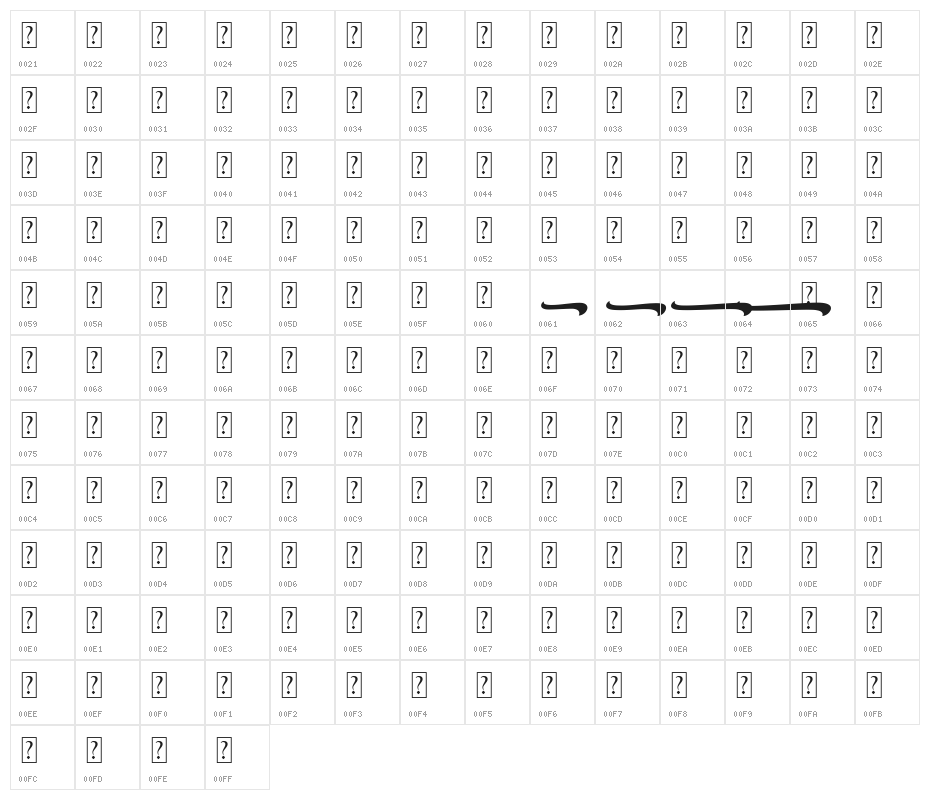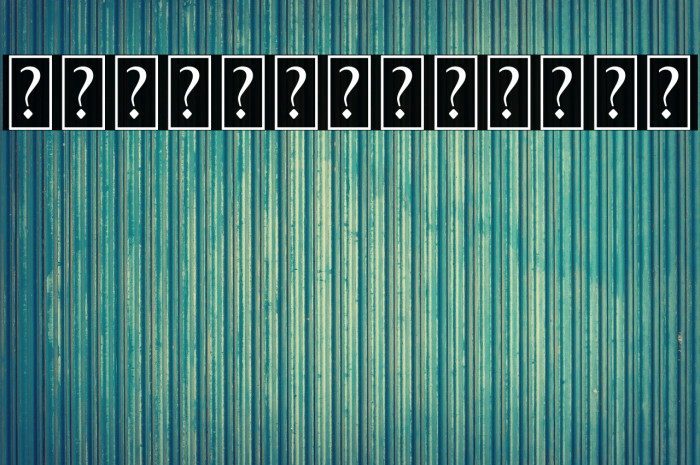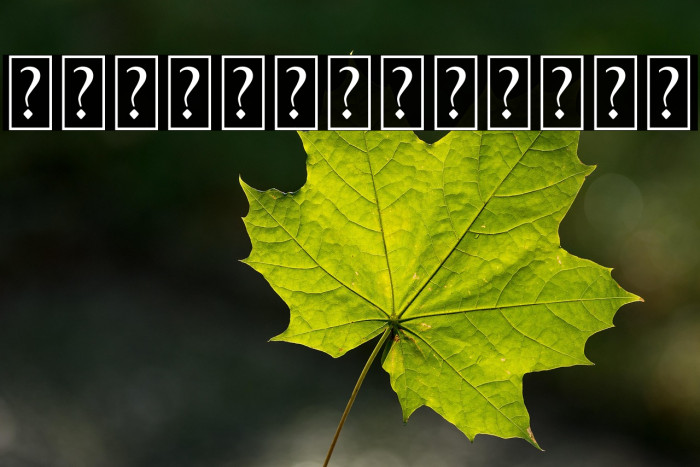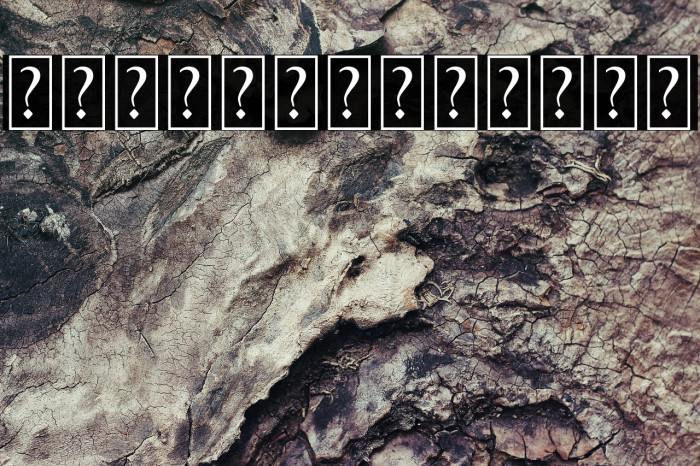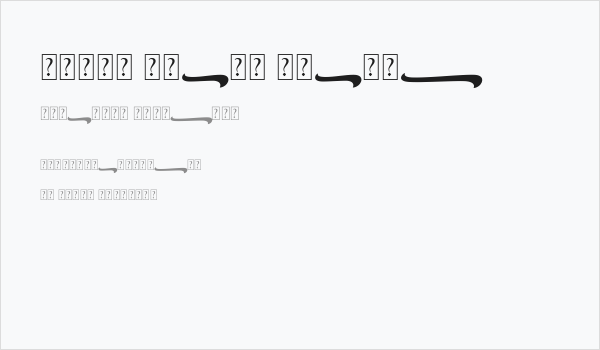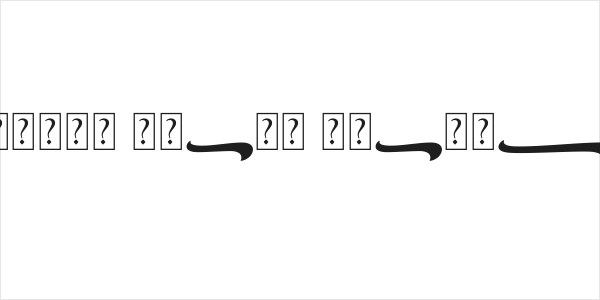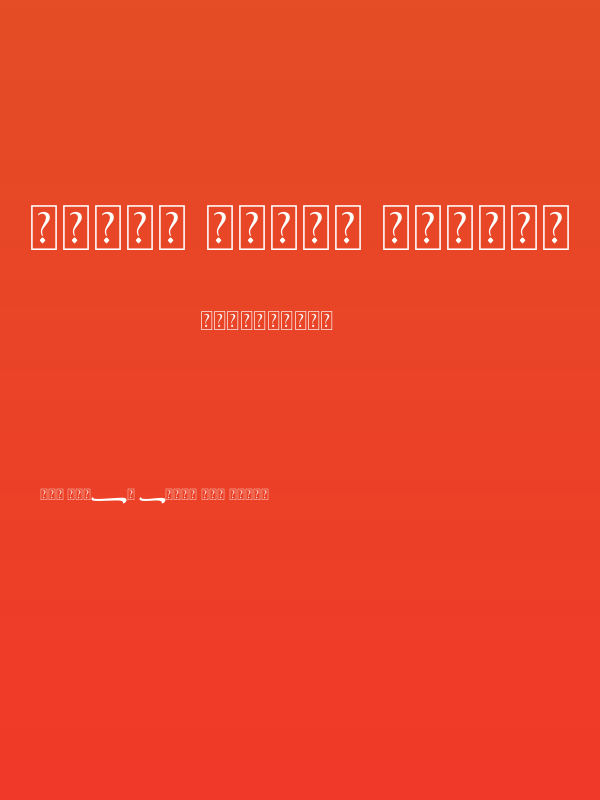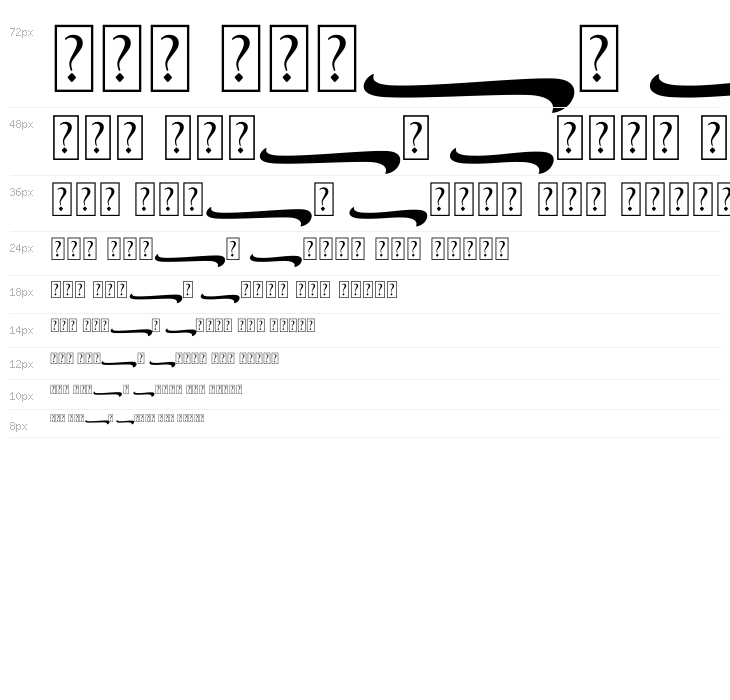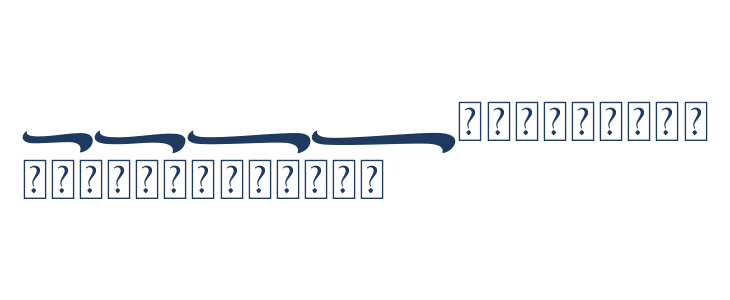
Gient Swash Italic Font
Gient Swash Italic Description
This font features an elegant and flowing design with pronounced swashes and a distinct italic slant. The characters exhibit a sophisticated style, with elongated strokes and decorative elements that add a sense of movement and grace. The overall appearance is both artistic and refined, making it suitable for projects that require a touch of elegance and flair. The font's unique characteristics make it stand out, offering a visually appealing option for creative designs.
| Proposed Projects | Ideal for wedding invitations, luxury branding, artistic posters, and elegant book covers. |